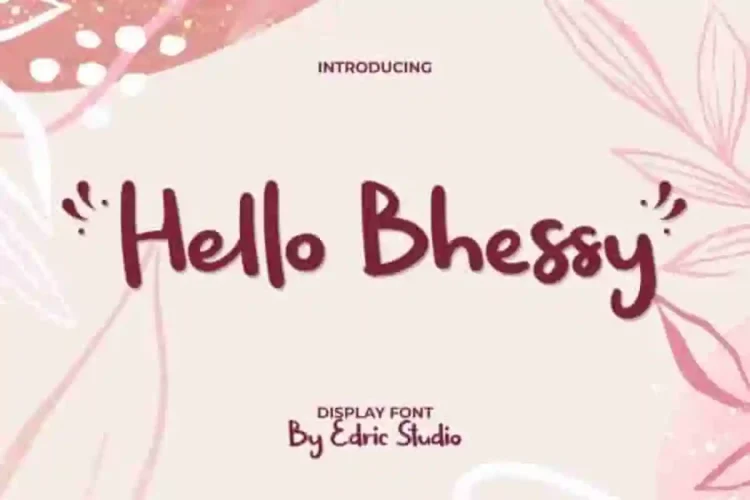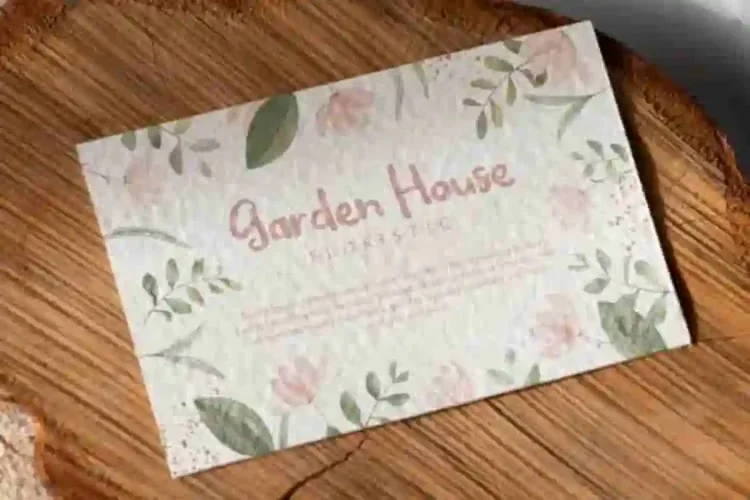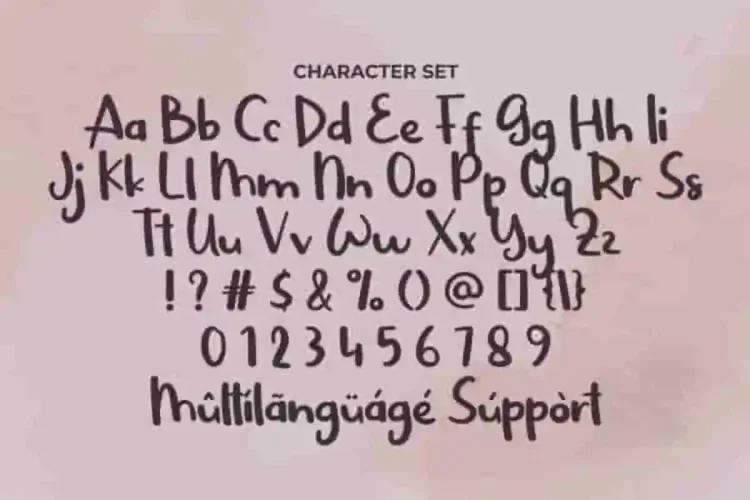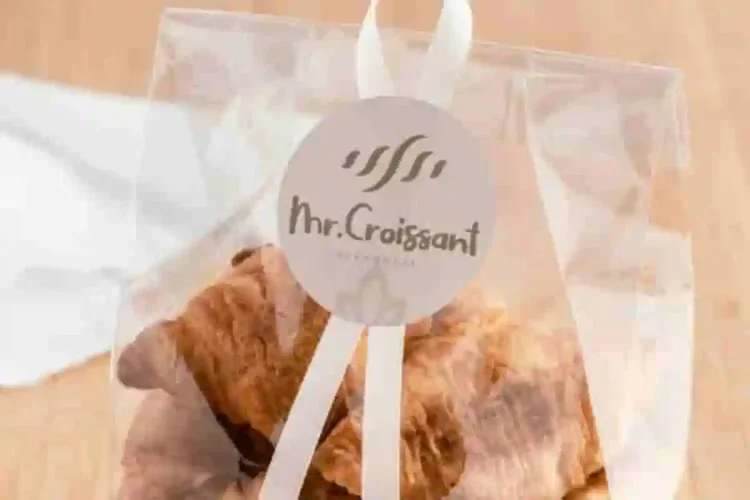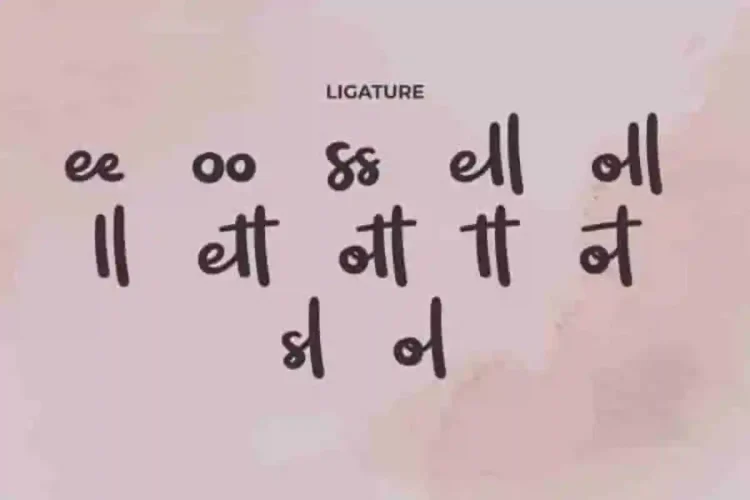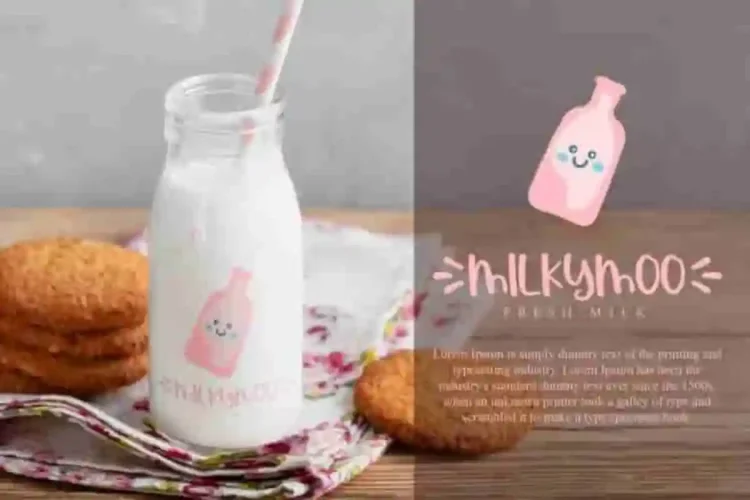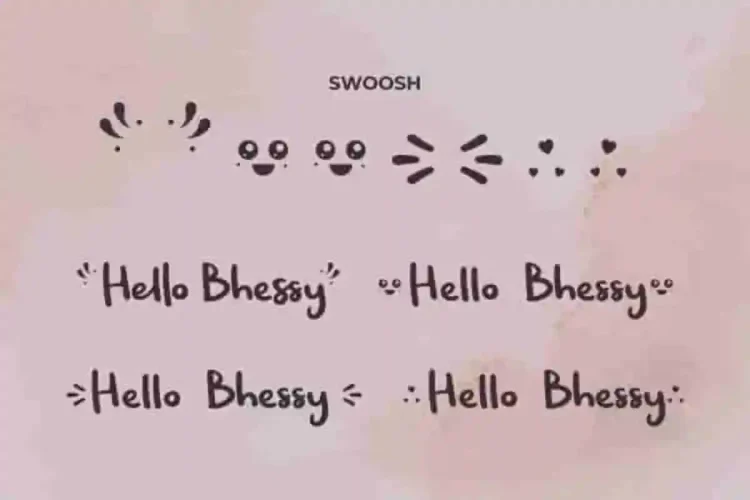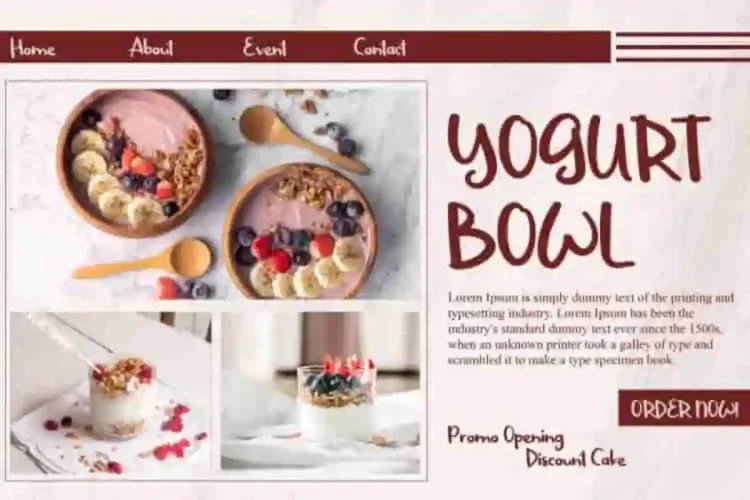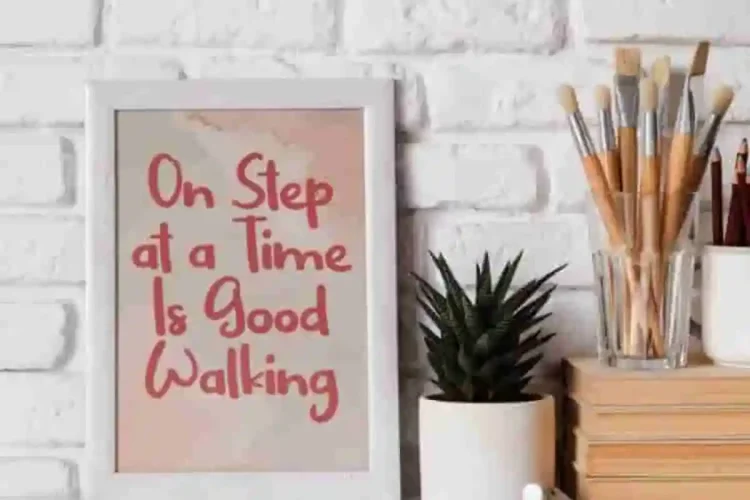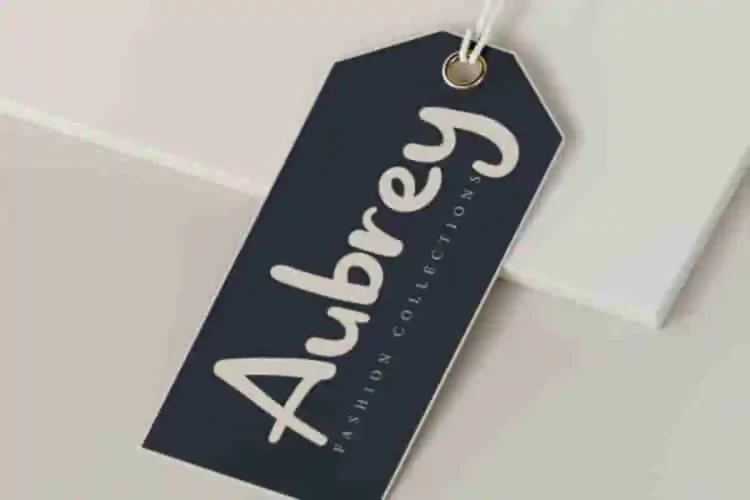
Hello Bhessy Display Handwritting Font is a fun handwriting font with awesome handwritten brush style, exclusively created by EdricStudio. Its playful handwritten style adds personality and charm to every project.
Hello Bhessy Display Handwritting Font comes with a full set of Uppercase and Lowercase Basic Characters, Number, large range of Punctuation and Symbol, Ligature, and Swoosh. It has a stunning characters set, perfectly managed with well spaced and kerning.
Hello Bhessy Display Handwritting Font is a playful typeface with unique decoration in each character Ready to use both on Windows machine or Mac with simple installations. It’s tested to work well in the Adobe Apps (Illustrator, Adobe InDesign, Adobe Photoshop) even work on Microsoft Word. PUA Encode Characters means you can access all the glyphs and swashes with ease – Fully accessible without additional design software.